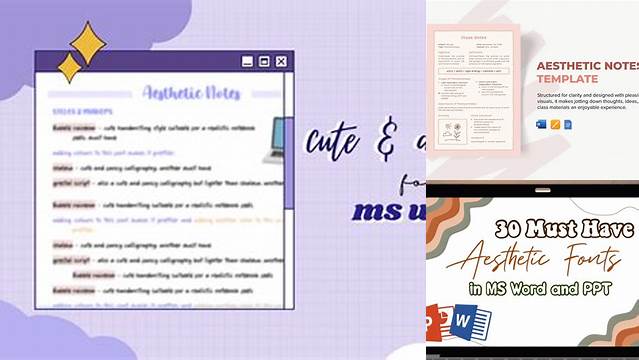
Best Aesthetic Fonts For Notes In Word [2024 Guide]
Are you looking to elevate your note-taking game and make your documents visually appealing in Microsoft Word? You've come to the right place! In this comprehensive guide, we'll dive deep into the world of aesthetic fonts, exploring how they can transform your notes from plain text into captivating visual masterpieces. We'll discuss a variety of font styles, provide practical tips for using them effectively in Word, and even touch on some essential design principles to help you create stunning documents that stand out.
Why Aesthetic Fonts Matter for Notes
Let's face it, aesthetics matter. In a world saturated with information, capturing and holding attention is crucial. This is where aesthetic fonts come into play. They're not just about making your notes look pretty; they're about enhancing readability, conveying tone, and creating a lasting impression. Imagine the difference between reading a lengthy document in a generic, default font like Times New Roman versus one styled with a beautifully crafted, modern typeface. The latter is instantly more engaging and easier on the eyes. Using aesthetic fonts in your notes can significantly improve comprehension and retention. A well-chosen font can highlight key information, create visual hierarchy, and guide the reader through your content. Think of it as visual storytelling – fonts can add personality and emotion to your words, making your notes more memorable and impactful. Furthermore, in professional settings, well-designed notes can reflect your attention to detail and professionalism. Whether you're preparing meeting minutes, project summaries, or research papers, using aesthetic fonts demonstrates that you care about the presentation of your work, which can positively influence how your ideas are received.
Exploring Different Font Styles for Aesthetic Notes
The world of fonts is vast and diverse, offering a plethora of options to suit various tastes and purposes. To help you navigate this landscape, let's explore some popular font styles that are particularly well-suited for aesthetic notes in Word. Firstly, serif fonts are characterized by their small decorative strokes, or serifs, at the end of letterforms. These fonts often evoke a sense of tradition, elegance, and formality. Times New Roman, while widely used, is just the tip of the iceberg. Consider fonts like Garamond, a classic serif typeface known for its readability and graceful appearance, or Georgia, a web-friendly serif that maintains its clarity even at smaller sizes. These fonts are excellent choices for academic papers, formal reports, or any document where you want to convey a sense of authority and sophistication. Secondly, sans-serif fonts, on the other hand, lack these decorative strokes, resulting in a cleaner, more modern aesthetic. Arial is a common sans-serif, but there are many other compelling options. Helvetica, a timeless classic, is renowned for its simplicity and versatility. Open Sans is a popular choice for digital content due to its excellent legibility on screens. Sans-serif fonts are ideal for headings, subheadings, and body text in contemporary documents, presentations, and digital notes. Thirdly, script fonts mimic the flowing strokes of handwriting, adding a touch of personality and artistry to your notes. However, use these fonts sparingly, as they can be challenging to read in large blocks of text. Script fonts are best reserved for headings, titles, or short quotes where you want to make a statement. Fourthly, display fonts are designed to be eye-catching and unique, often used for logos, posters, and headlines. These fonts come in a wide range of styles, from bold and geometric to whimsical and playful. While not suitable for body text, display fonts can add visual interest to your notes when used judiciously for headings or accents. Finally, monospace fonts are fonts in which each character occupies the same horizontal space. They are commonly used in coding and technical writing but can also create a distinct aesthetic in notes, particularly when used for annotations or asides. Courier New is a familiar monospace font, but there are more modern options like Consolas that offer improved readability.
How to Use Aesthetic Fonts in Microsoft Word
Now that we've explored different font styles, let's discuss how to effectively use them in Microsoft Word to create aesthetic notes. The first step is to choose the right font for your purpose. Consider the overall tone and style of your document. Are you aiming for a formal, professional look, or something more casual and creative? Select a font that aligns with your goals and target audience. Once you've chosen your fonts, establish a visual hierarchy. This involves using different font sizes, styles (bold, italic), and colors to differentiate headings, subheadings, body text, and other elements. A clear visual hierarchy helps guide the reader through your notes and makes it easier to scan and understand the content. For example, you might use a larger, bolder sans-serif font for headings, a slightly smaller serif font for body text, and an italic script font for quotes. It is crucial to pay attention to font pairing. Combining different fonts can add visual interest, but it's essential to do it thoughtfully. A good rule of thumb is to pair a serif font with a sans-serif font. For example, you could use Garamond for body text and Helvetica for headings. Avoid using too many different fonts in a single document, as this can create a cluttered and unprofessional look. Stick to two or three fonts at most. Another important aspect is font size and spacing. Choose a font size that is comfortable to read, typically between 11 and 12 points for body text. Adjust the line spacing (leading) and paragraph spacing to improve readability. A little extra space between lines and paragraphs can make a big difference in the overall appearance of your notes. Finally, be consistent with your font choices throughout your document. Use the same fonts for the same elements (e.g., headings, subheadings, body text) to maintain a cohesive and professional look. Consistency is key to creating visually appealing and easy-to-read notes.
Essential Design Principles for Aesthetic Notes
Beyond font selection and usage, understanding some basic design principles can further enhance the aesthetics of your notes in Word. One crucial principle is balance. Visual balance refers to the distribution of elements on a page. Aim for a balanced layout, where elements are not clustered too heavily on one side or the other. This can be achieved through symmetrical or asymmetrical arrangements. Symmetrical balance involves mirroring elements on either side of a central axis, while asymmetrical balance uses different elements to create a sense of equilibrium. Another important principle is contrast. Contrast is the difference between elements in a design, such as font sizes, colors, and shapes. Using contrast effectively can help create visual interest and highlight key information. For example, you might use a bold, dark font for headings and a lighter, less prominent font for body text. Contrast can also be achieved through the use of color. Use different colors to highlight sections and guide the reader. Color plays a significant role in aesthetics. Choose a color palette that is visually appealing and consistent with the tone of your notes. Consider using a limited number of colors to avoid overwhelming the reader. Pastel colors and muted tones often create a calming and sophisticated look, while bright, bold colors can add energy and excitement. White space, also known as negative space, is the empty space around and between elements in a design. Don't be afraid to leave ample white space in your notes. White space helps to declutter the page, improve readability, and draw attention to important elements. It gives the eyes a break and prevents the design from feeling cramped. Another design element is alignment. Proper alignment is essential for creating a clean and organized look. Align text and other elements consistently, whether it's left-aligned, right-aligned, centered, or justified. Consistent alignment creates a sense of order and professionalism. Lastly, simplicity is often the key to good design. Avoid overcrowding your notes with too many elements or unnecessary embellishments. A clean, minimalist design is often more effective than a cluttered one. Focus on conveying your message clearly and concisely, without distractions. These design principles will help you in making aesthetic notes in Word.
Font Resources and Tools for Microsoft Word
Examples of Aesthetic Font Combinations for Notes
To give you some practical inspiration, let's explore some examples of aesthetic font combinations that work well for notes in Microsoft Word. These combinations aim to create visually pleasing and readable documents. First is Garamond & Helvetica. This is a classic pairing that combines the elegance of a serif font (Garamond) with the modern simplicity of a sans-serif font (Helvetica). Use Garamond for body text and Helvetica for headings to create a sophisticated and readable look. Second is Merriweather & Open Sans. Merriweather is a robust serif font designed for on-screen reading, while Open Sans is a highly legible sans-serif font. This combination is ideal for digital notes and documents, as both fonts are optimized for screen display. Third is Playfair Display & Montserrat. Playfair Display is a stylish serif font with a touch of elegance, making it perfect for headings and titles. Montserrat is a clean and modern sans-serif font that works well for body text. This pairing creates a visually striking contrast and adds personality to your notes. Fourth is Lora & Lato. Lora is a well-balanced serif font with a contemporary feel, while Lato is a clean and modern sans-serif font. This combination is versatile and works well for a variety of note-taking purposes, from academic papers to meeting minutes. Fifth is Arvo & Raleway. Arvo is a geometric slab-serif font that adds a touch of character to headings and subheadings. Raleway is an elegant sans-serif font that complements Arvo beautifully in body text. This combination is suitable for projects where you want a slightly more distinctive and modern look. Finally, Roboto & Roboto Slab. This is a harmonious pairing within the same font family. Roboto is a widely used sans-serif font known for its readability, while Roboto Slab is a slab-serif version that provides a subtle contrast for headings. This combination is simple yet effective, creating a cohesive and professional look. These font combinations serve as starting points, experiment with different pairings to discover your unique style and preferences. Remember to consider the context and purpose of your notes when choosing font combinations.
Common Mistakes to Avoid When Using Aesthetic Fonts
While using aesthetic fonts can significantly enhance the visual appeal of your notes, it's essential to avoid common mistakes that can detract from their effectiveness. One frequent mistake is overusing decorative fonts. While script and display fonts can add personality, using them excessively can make your notes difficult to read. Reserve these fonts for headings, titles, or short quotes, and stick to more legible fonts for body text. Another mistake is using too many fonts. As mentioned earlier, it's best to limit yourself to two or three fonts in a single document. Using more fonts can create a cluttered and unprofessional look. Consistency in font usage is key to creating a visually cohesive design. Another mistake is ignoring font size and spacing. Using fonts that are too small or too large can strain the reader's eyes. Similarly, insufficient line spacing (leading) and paragraph spacing can make your notes appear cramped and difficult to read. Pay attention to these details to ensure optimal readability. Poor contrast between fonts and background is another common mistake. Make sure there is sufficient contrast between your text and the background color. Light text on a light background or dark text on a dark background can be challenging to read. Aim for a high level of contrast to improve legibility. A common oversight is disregarding font licensing. Before using a font, especially for commercial projects, make sure you have the necessary permissions and licenses. Many free fonts are licensed for personal use only, and using them for commercial purposes may violate the terms of the license. Always check the font's licensing information before using it. Furthermore, failing to establish a visual hierarchy can diminish the effectiveness of your notes. Use different font sizes, styles (bold, italic), and colors to create a clear hierarchy that guides the reader through your content. Without a clear hierarchy, your notes may appear disorganized and overwhelming. Finally, overlooking readability in the pursuit of aesthetics is a critical mistake. While aesthetics are important, readability should always be the top priority. Choose fonts that are easy to read, even in large blocks of text. Avoid fonts with overly elaborate or decorative letterforms that can strain the reader's eyes. These common mistakes are avoidable and adhering to them will greatly improve the aesthetic appeal of your notes.
Conclusion: Elevate Your Notes with Aesthetic Fonts
In conclusion, aesthetic fonts can dramatically transform your notes in Microsoft Word, making them more engaging, readable, and visually appealing. By exploring different font styles, understanding design principles, and utilizing font resources effectively, you can create stunning documents that stand out. Remember, the key is to choose fonts that align with your purpose, establish a clear visual hierarchy, and prioritize readability. Avoid common mistakes such as overusing decorative fonts or disregarding font licensing. With a little creativity and attention to detail, you can elevate your note-taking game and make a lasting impression with your beautifully designed documents. So go ahead, experiment with different font combinations, and discover your unique style. Your notes will never be the same again!